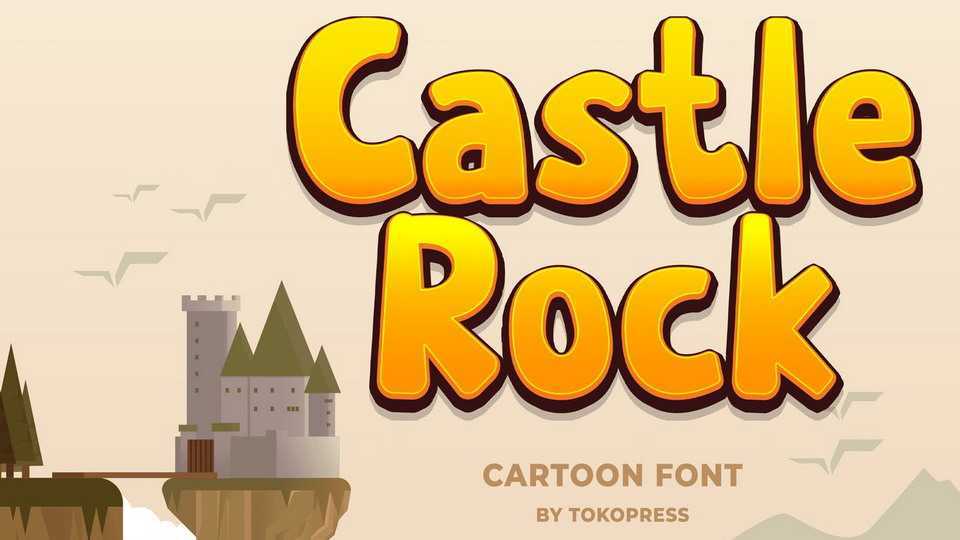
Download Castle Rock font, a cartoon typeface. The medieval era is well known as an adventure and exploration era, well, that’s what kids do right? And Castle Rock will bring you just that.